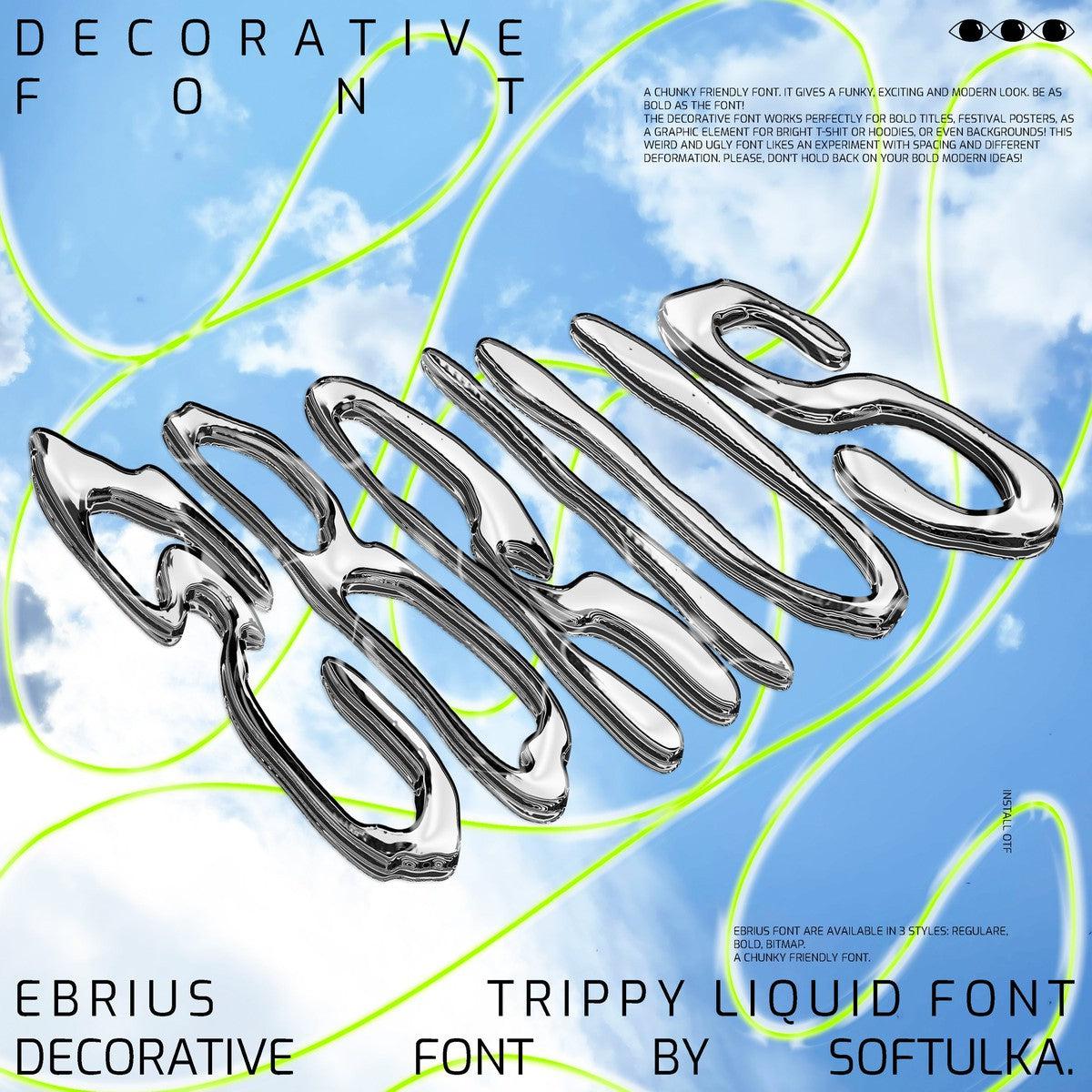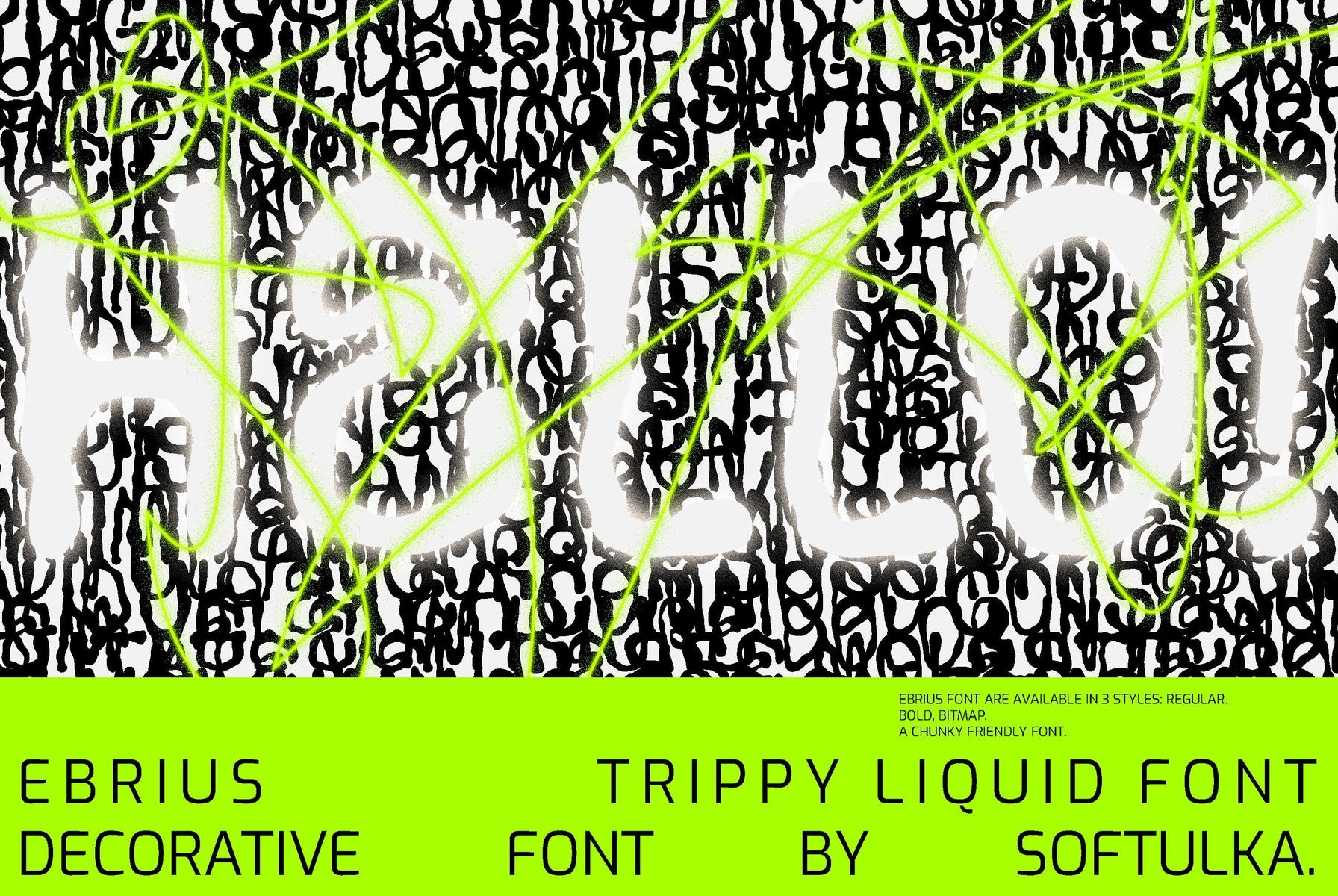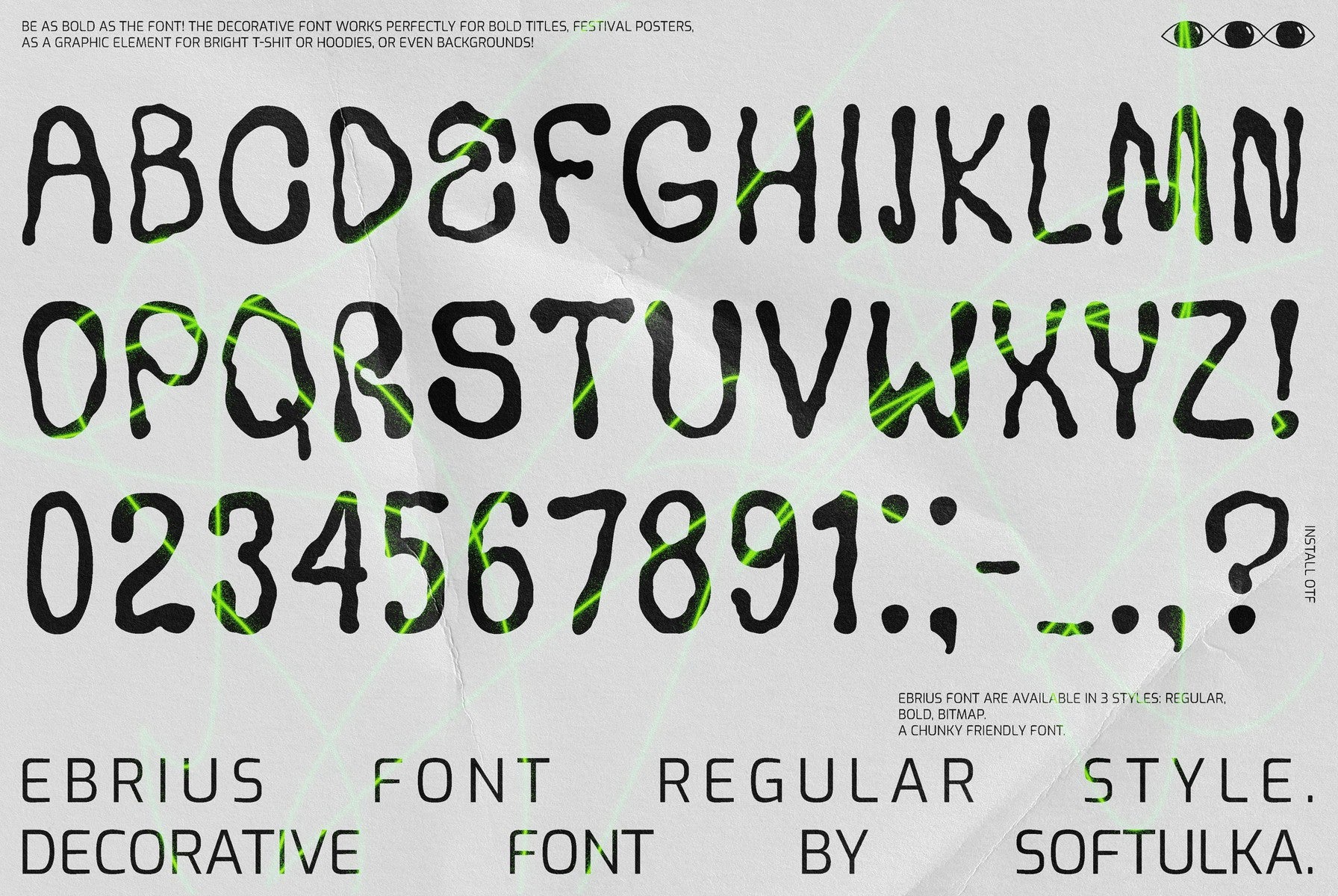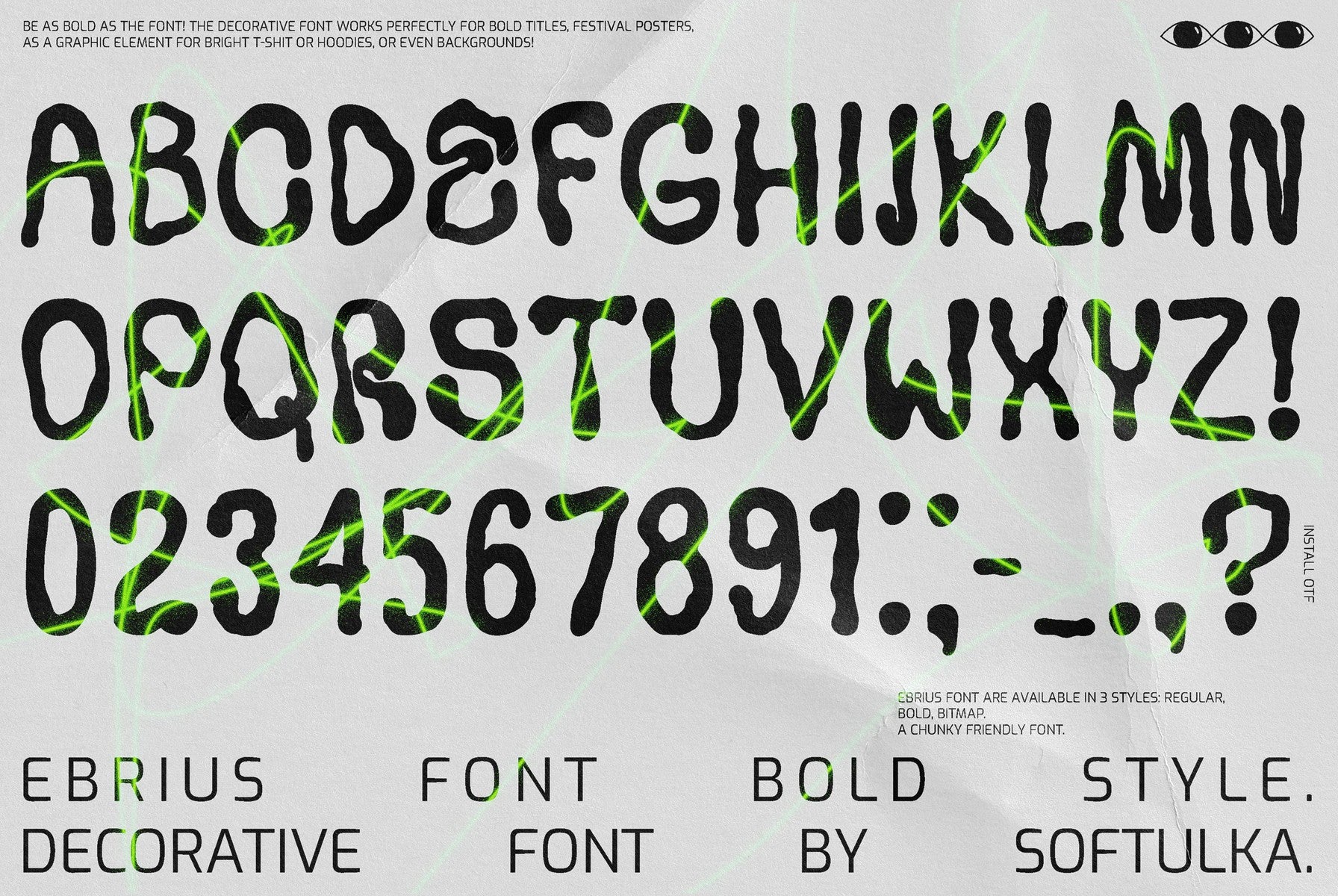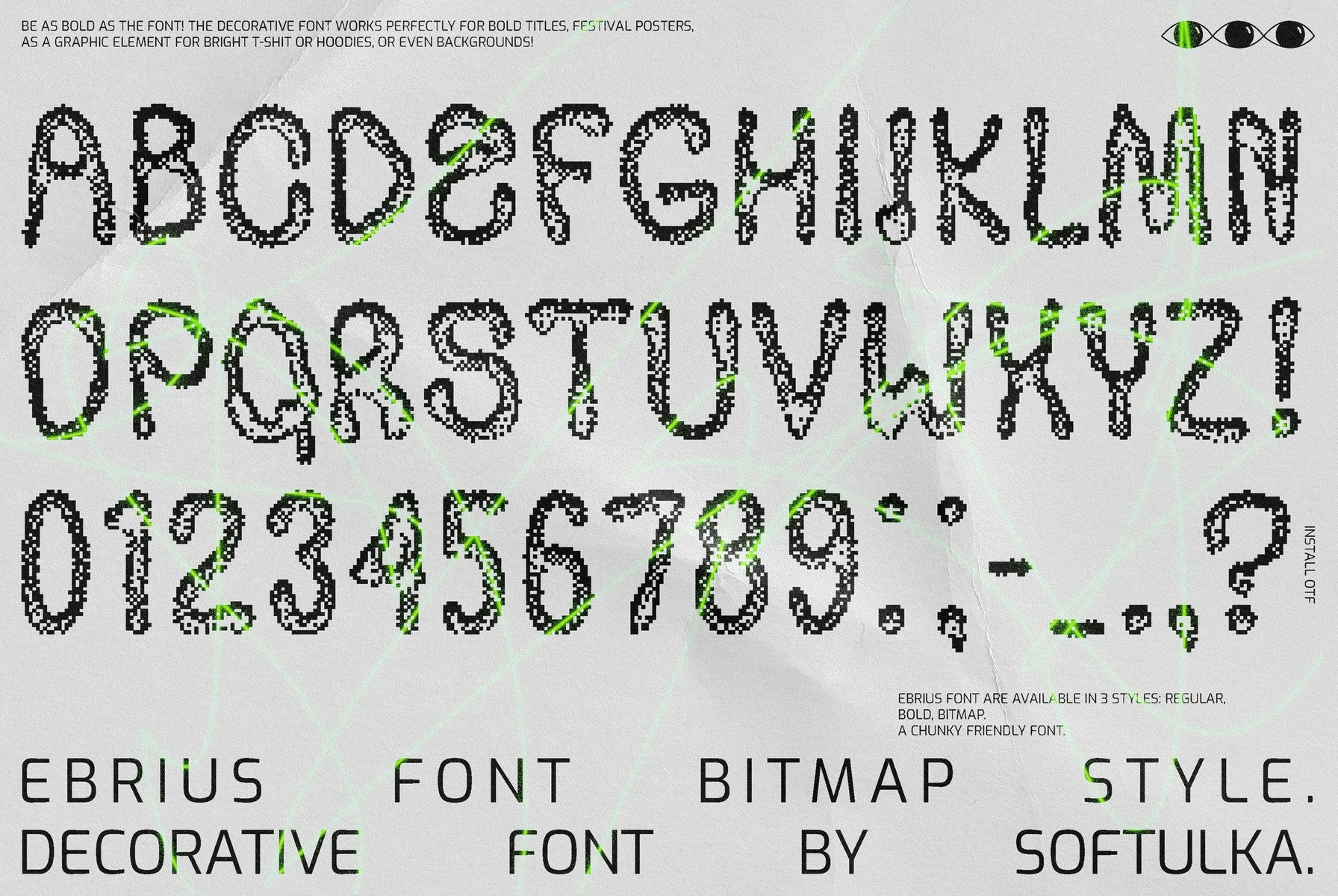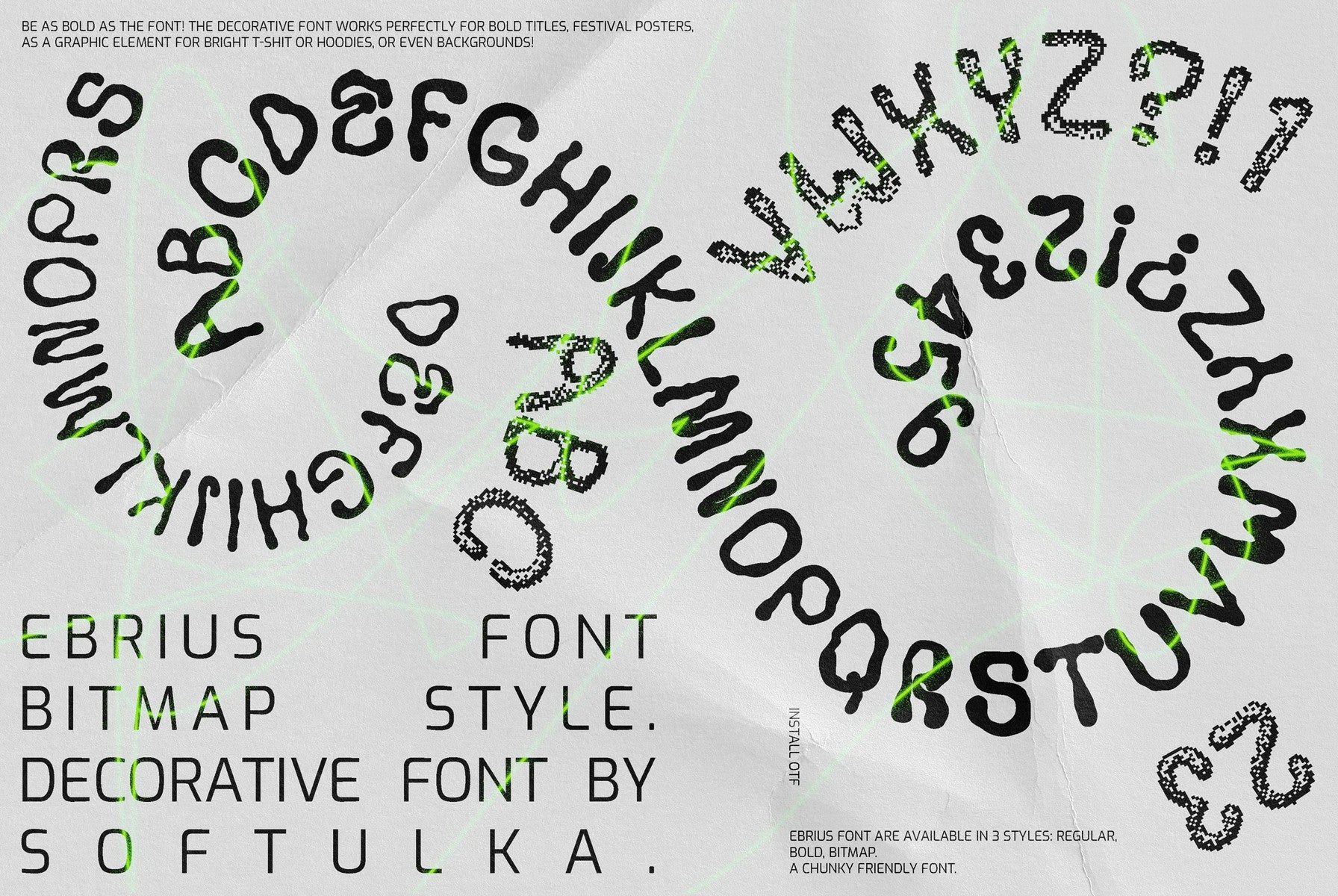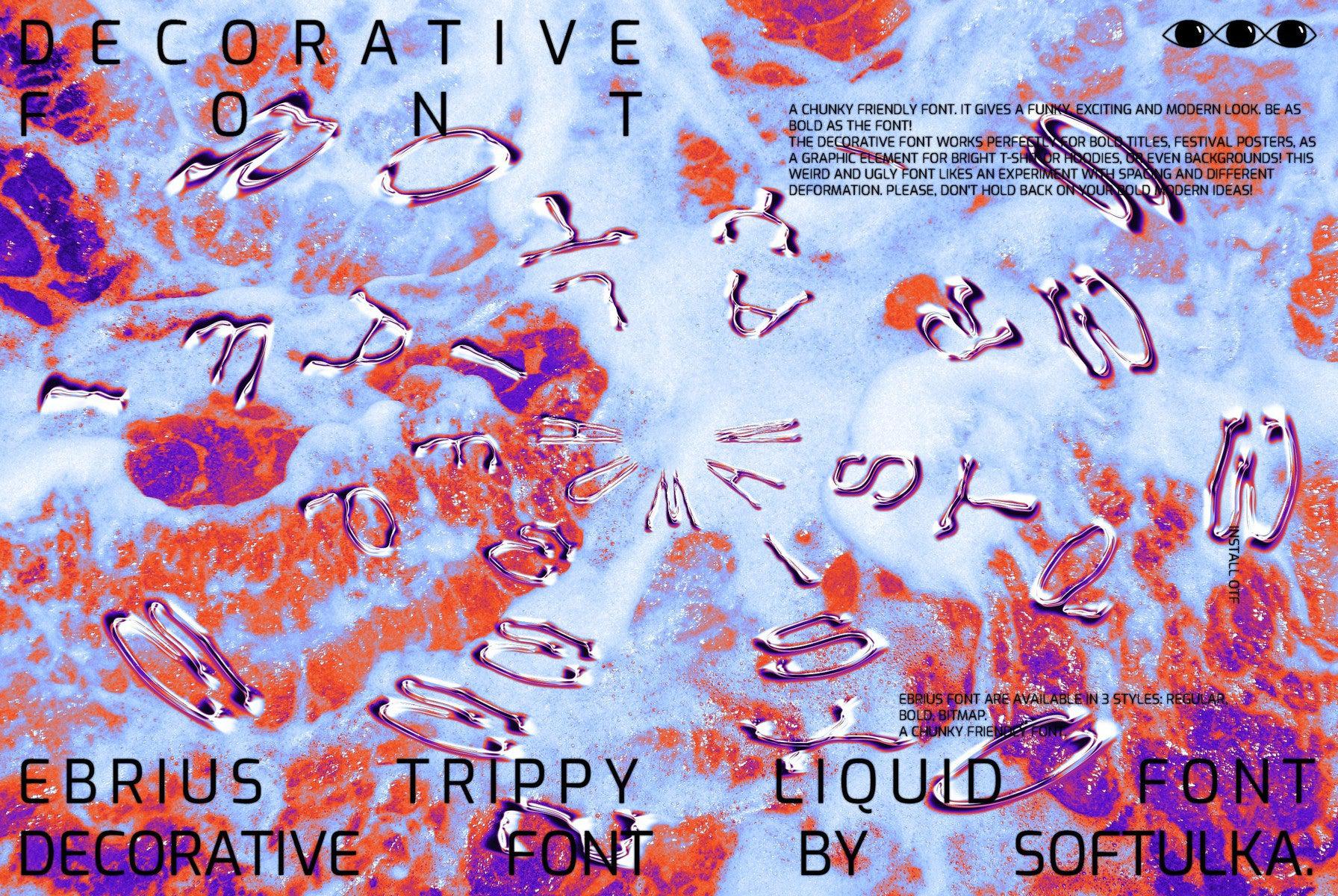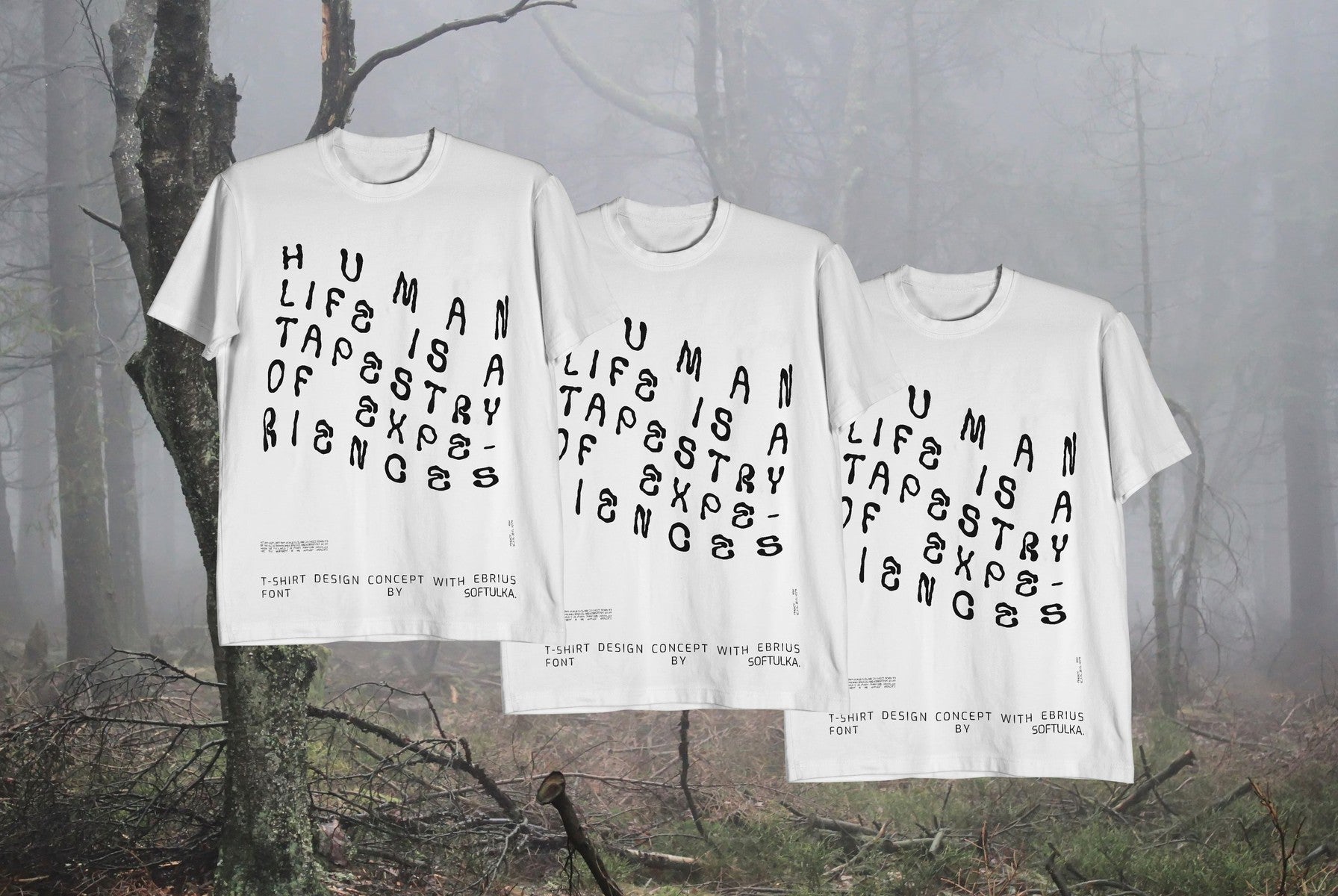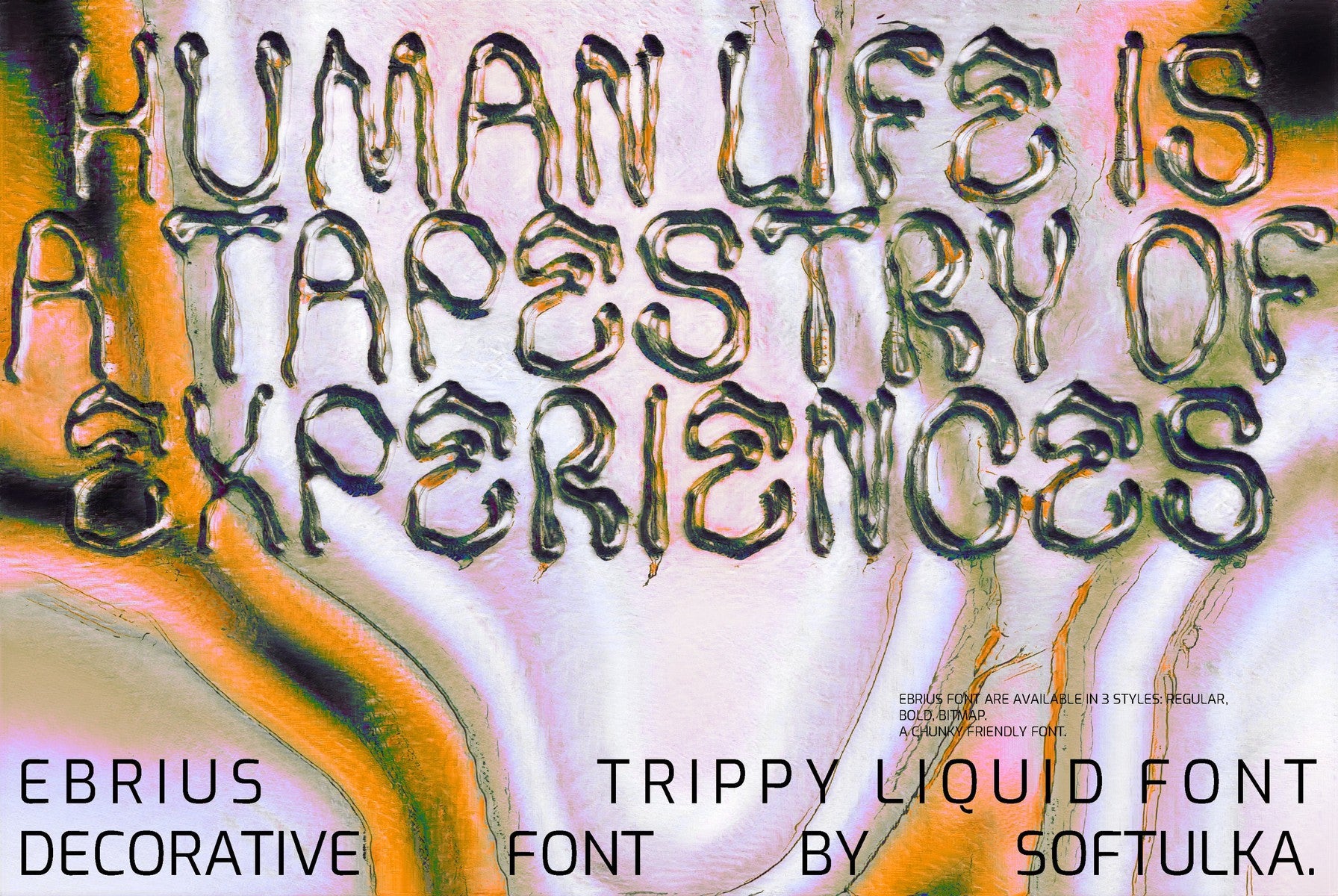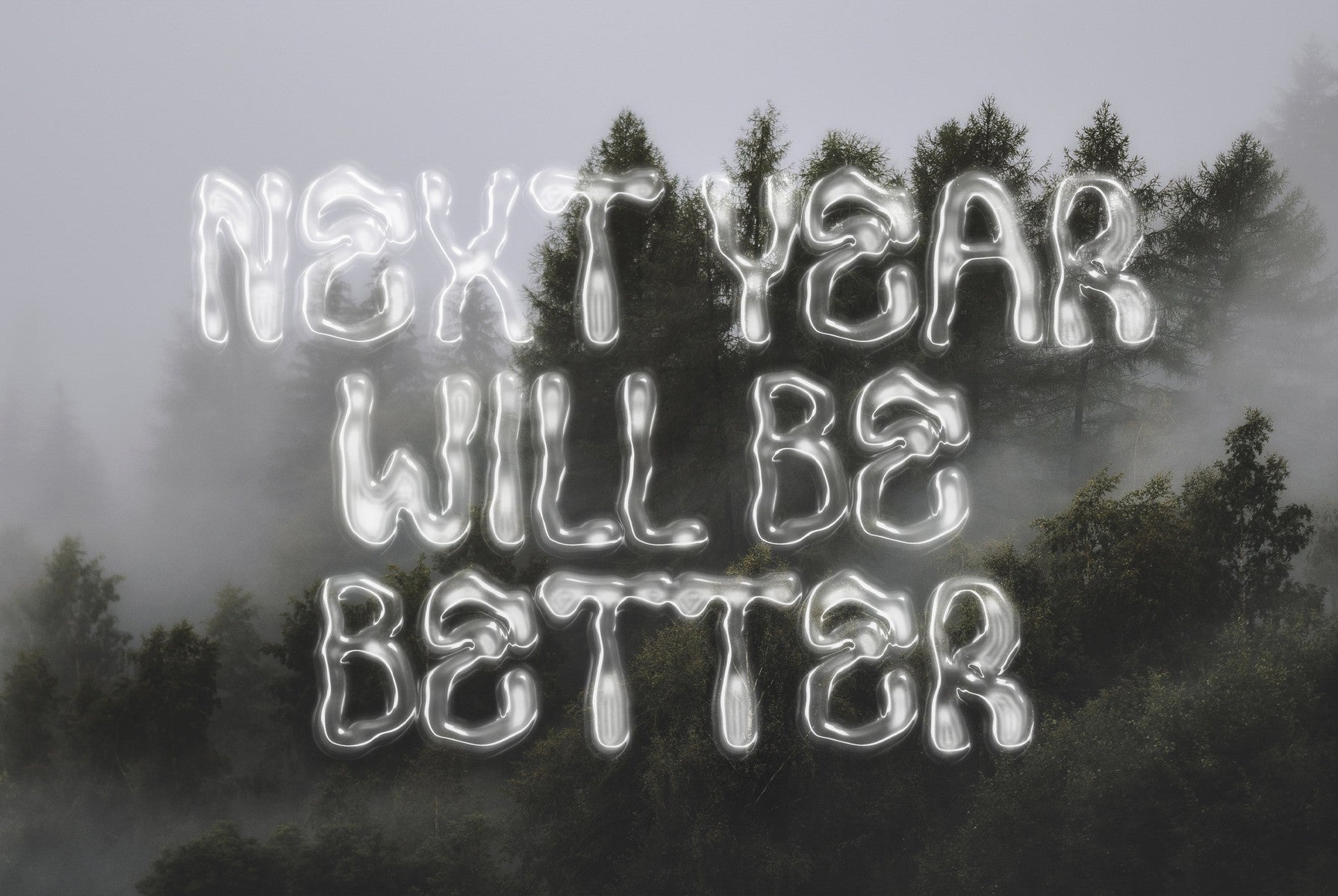
Ebrius Font - Trippy Bitmap Font
The Ebrius Font - Trippy Bitmap Font is a wavy, liquid decorative font featuring a unique Bitmap Style with vector dither texture. This bold, experimental font includes 1 OTF file, 1 TTF file, 1 WOFF (WebFont) file, and a PDF preview, but does not come with any photos, textures, or effects.
Ideal for Y2K-inspired graphic design and psychedelic aesthetics. Perfect for festival posters, bold titles, trendy T-shirt designs, and vibrant backgrounds, ensuring a unique and eye-catching visual impact.